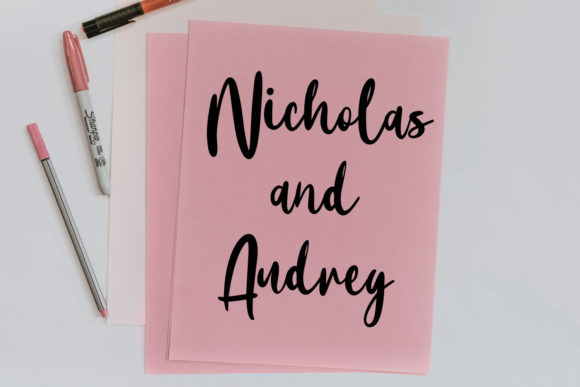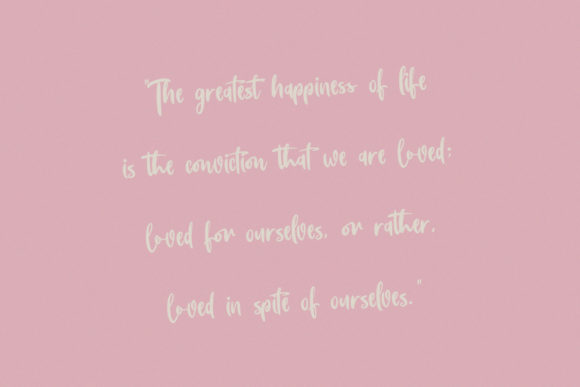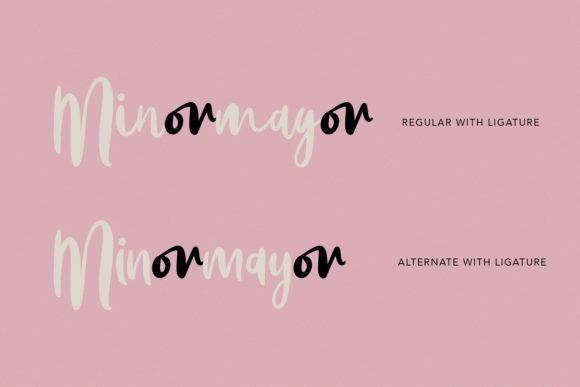
Introduction to Minormayor Font
Remember that moment when a design element perfectly captured the essence of your creative vision? For many designers, it’s a feeling that’s hard to replicate, but with the right tools, it’s within reach. One such tool is the Minormayor Font, a charming and elegant handwritten font that can elevate your projects to new heights.
Whether you’re working on a personal project or a commercial design, having access to high-quality design resources like the Minormayor Font can make all the difference. With its flowing curves and subtle flair, this font is perfect for adding a touch of sophistication to your creative endeavors.
Key Features of Minormayor Font
- High-quality design resource ideal for creative projects, offering a unique aesthetic.
- Unique characteristics include a clean, modern design and a range of customizable options, making it an ideal choice for designers.
Honest Review: Minormayor Font
As a designer, I’m always on the lookout for new and exciting design resources to elevate my creative projects. Recently, I stumbled upon the Minormayor Font, and I’m excited to share my honest review with you.
Here are the key points that caught my attention:
- ✨ High-quality design: The Minormayor Font boasts a clean and modern aesthetic, making it perfect for a wide range of creative projects.
- ⚠️ Limited font styles: The Minormayor Font only comes in a few font styles, which may not be sufficient for designers who require a more extensive range of options.
Common Use Cases for Minormayor Font
The Minormayor Font is perfect for a variety of creative projects, including logos, brochures, and social media graphics. Its high-quality design and versatility make it a great choice for designers and non-designers alike.